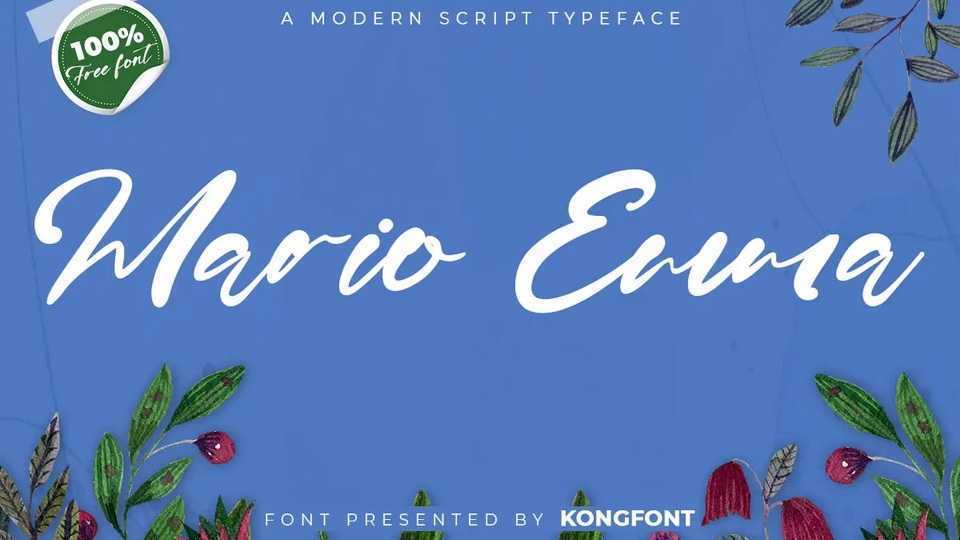
Download Mario Emma font, a modern script typeface. With a classy and natural handwritten style, Mario Emma font brings a classy and chic look.
Designer: Kong Font Studio